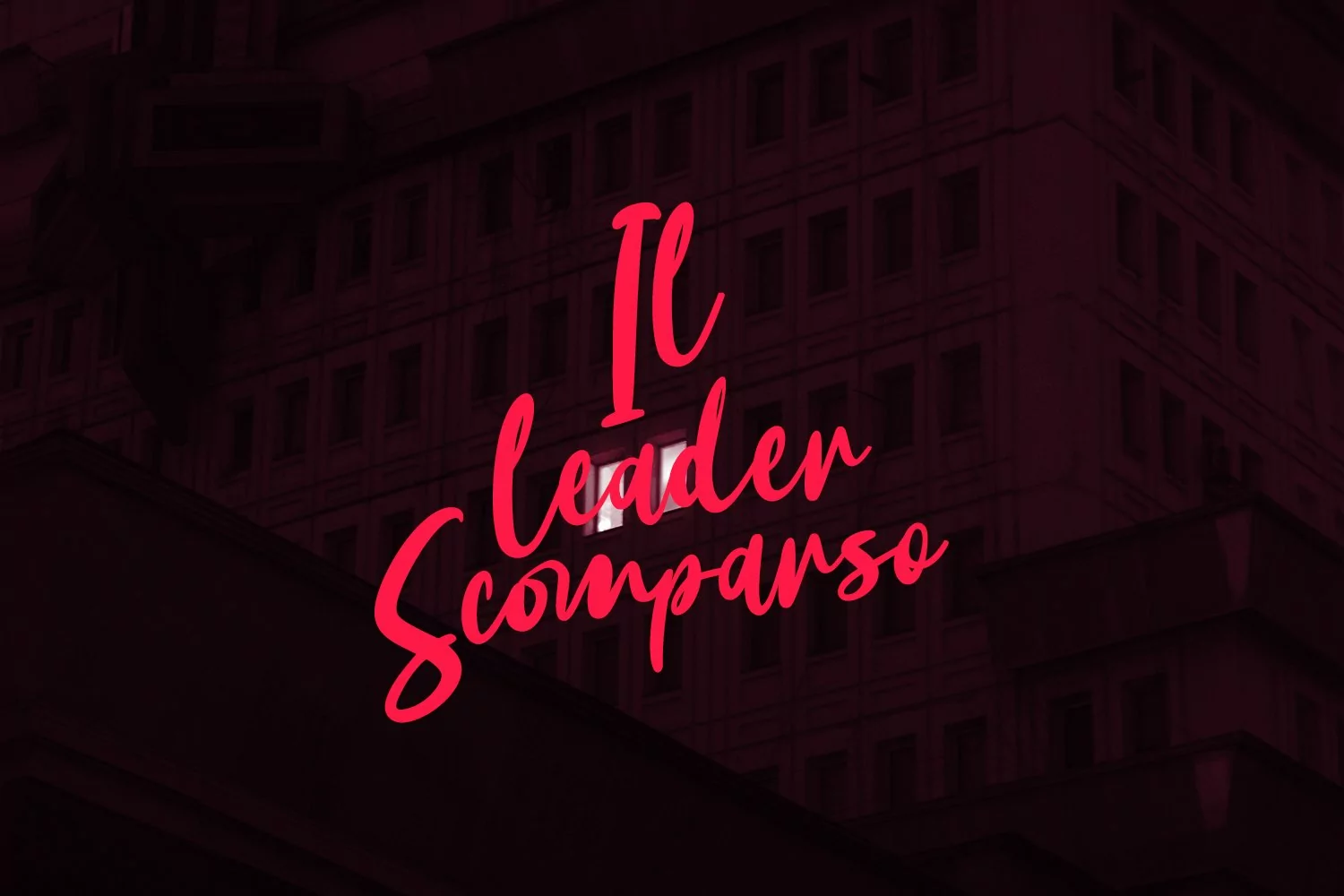
Avellionts is a casual script font, with bold stroke, slant and fun character. It has Opentype features ligatures of character and alternate lowercase option, To give you an extra creative work. Avellionts script font support multilingual more than 100+ language. This font is good for logo design, Social media, Movie Titles, Books Titles, a short text even a long text letter and good for your secondary text font with sans or serif. Make a stunning work with Avellionts font.